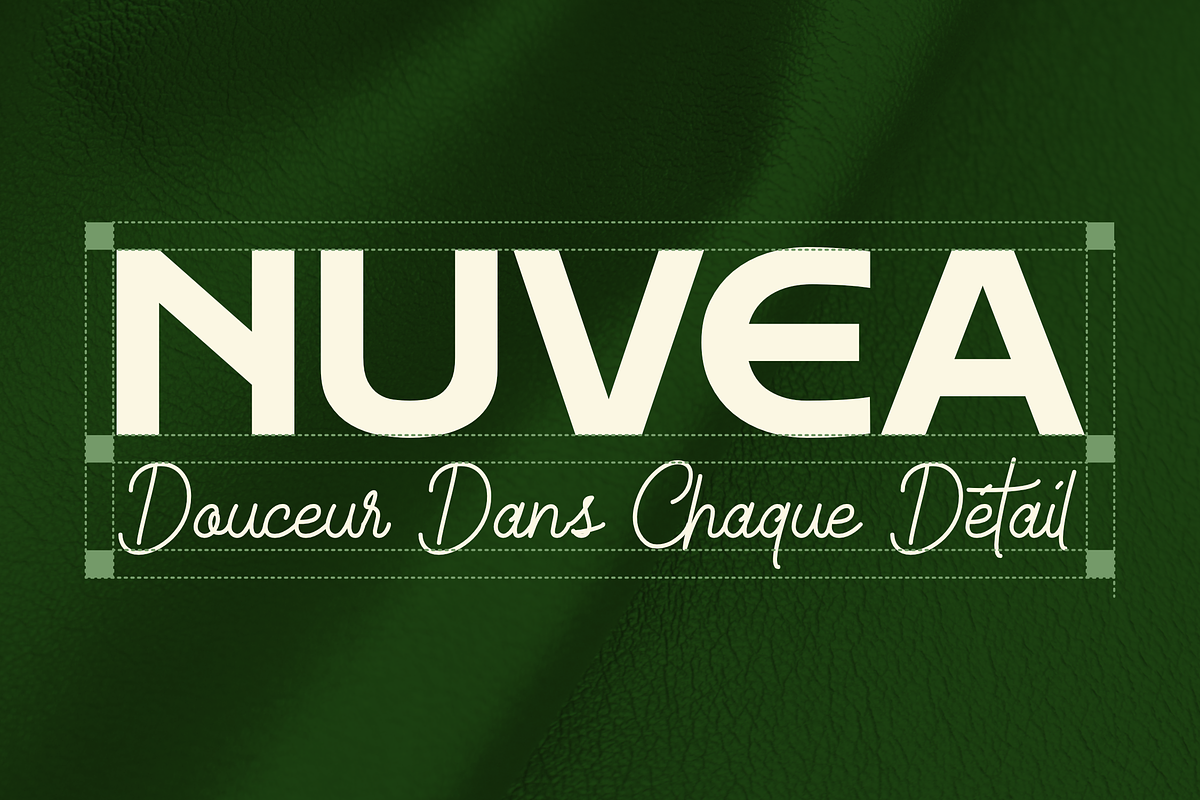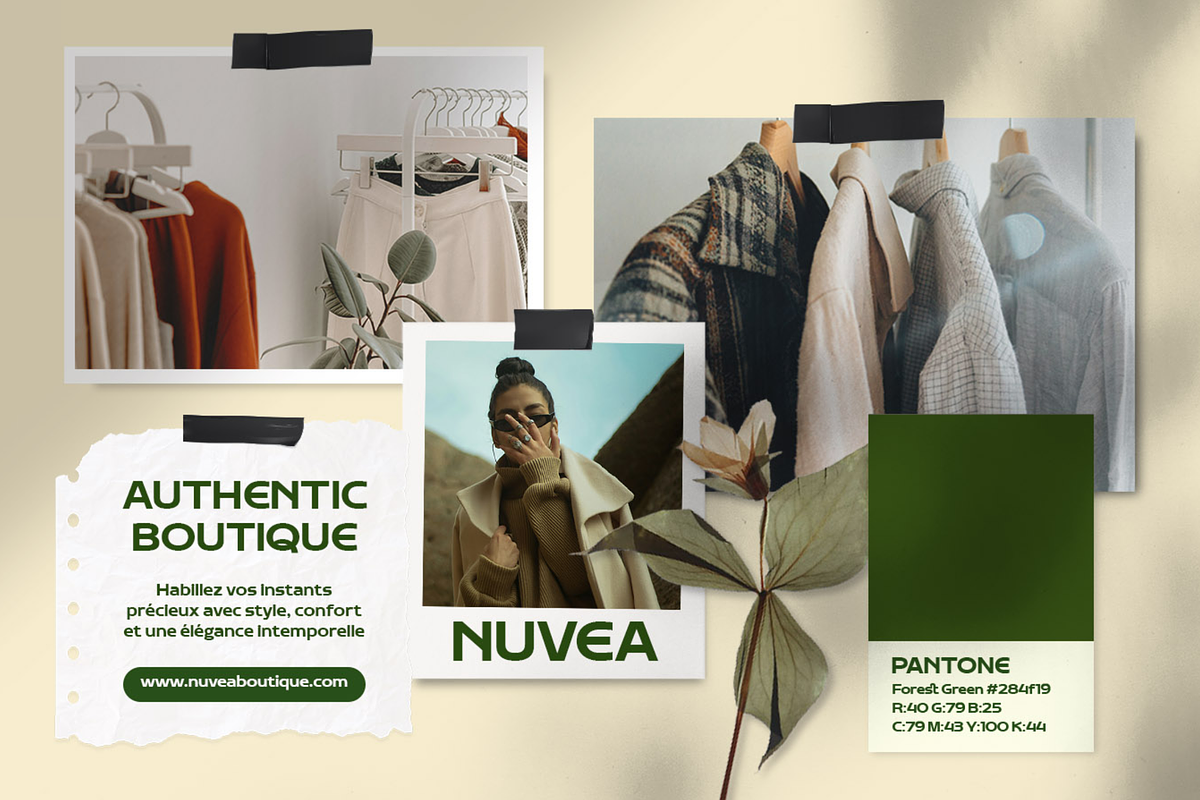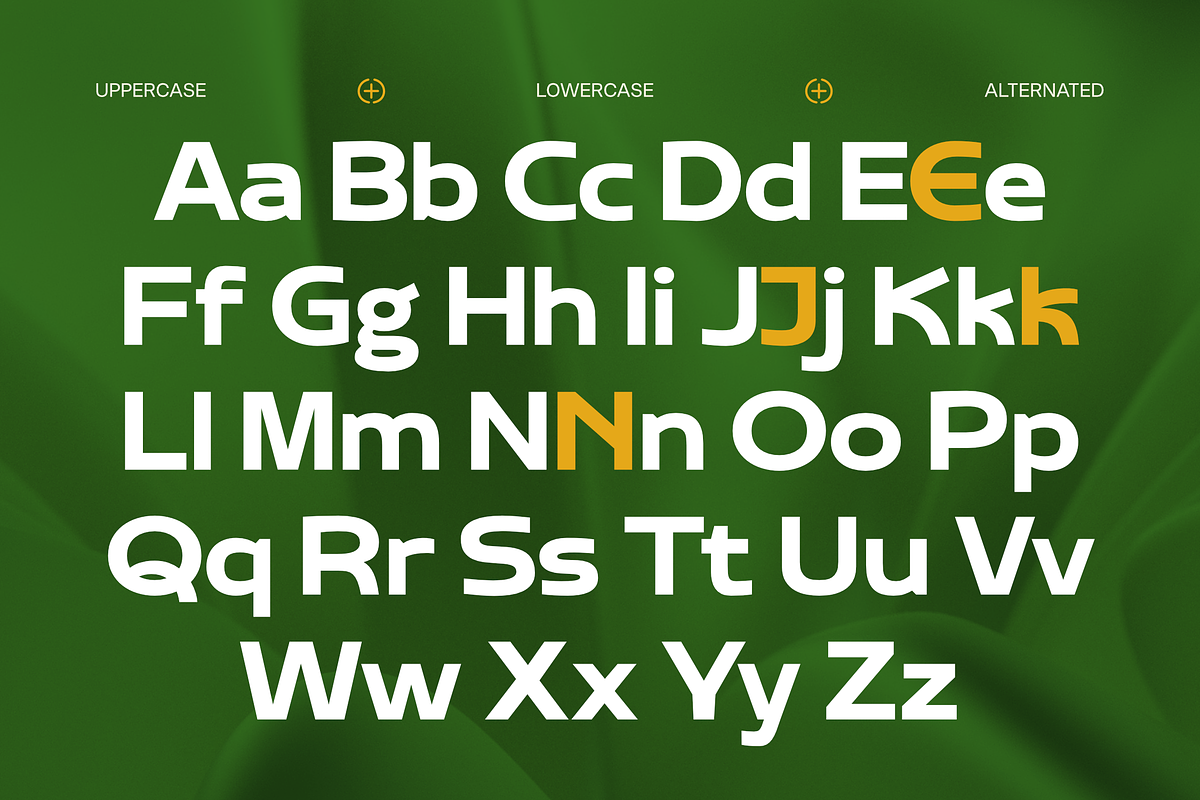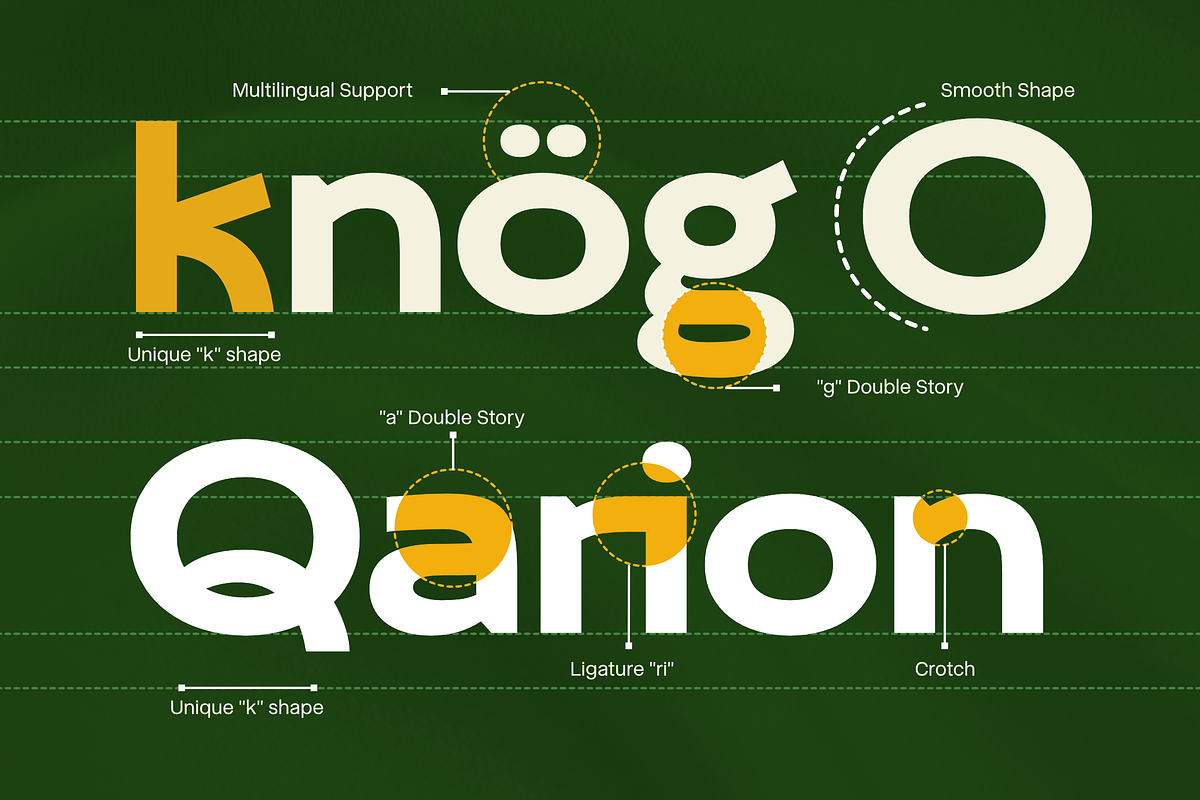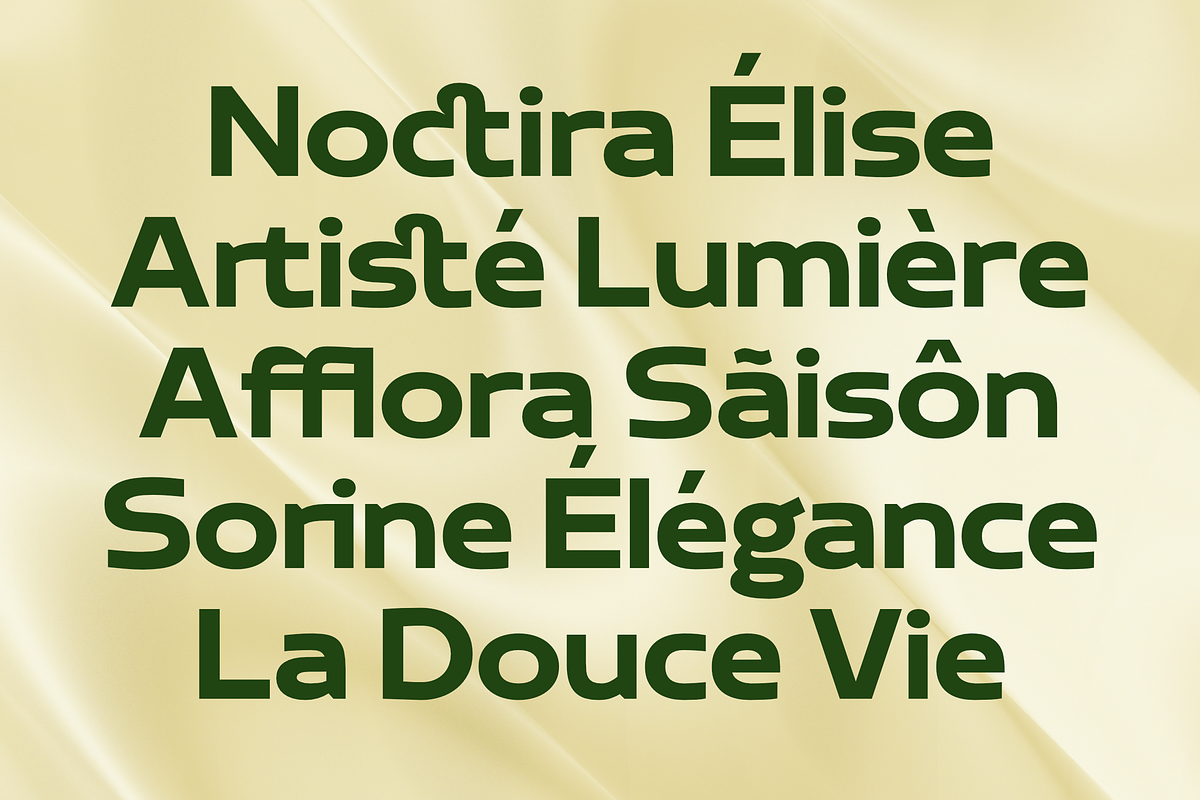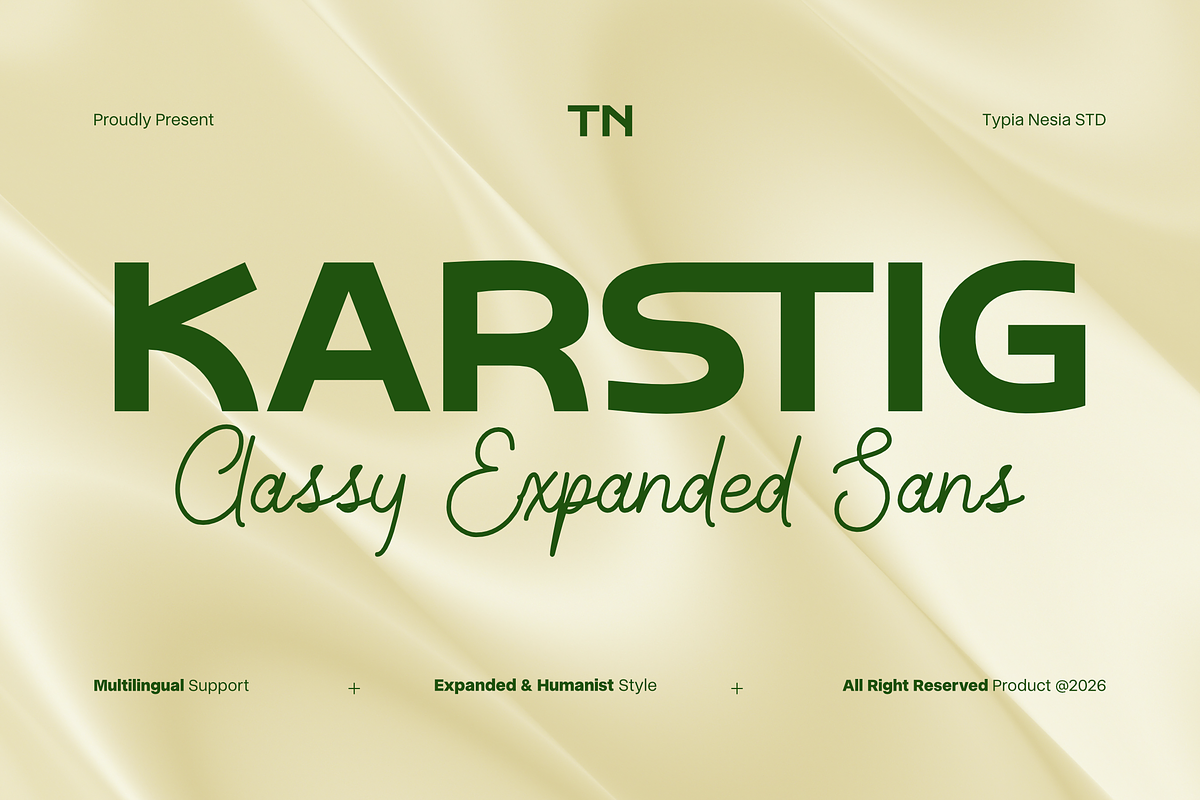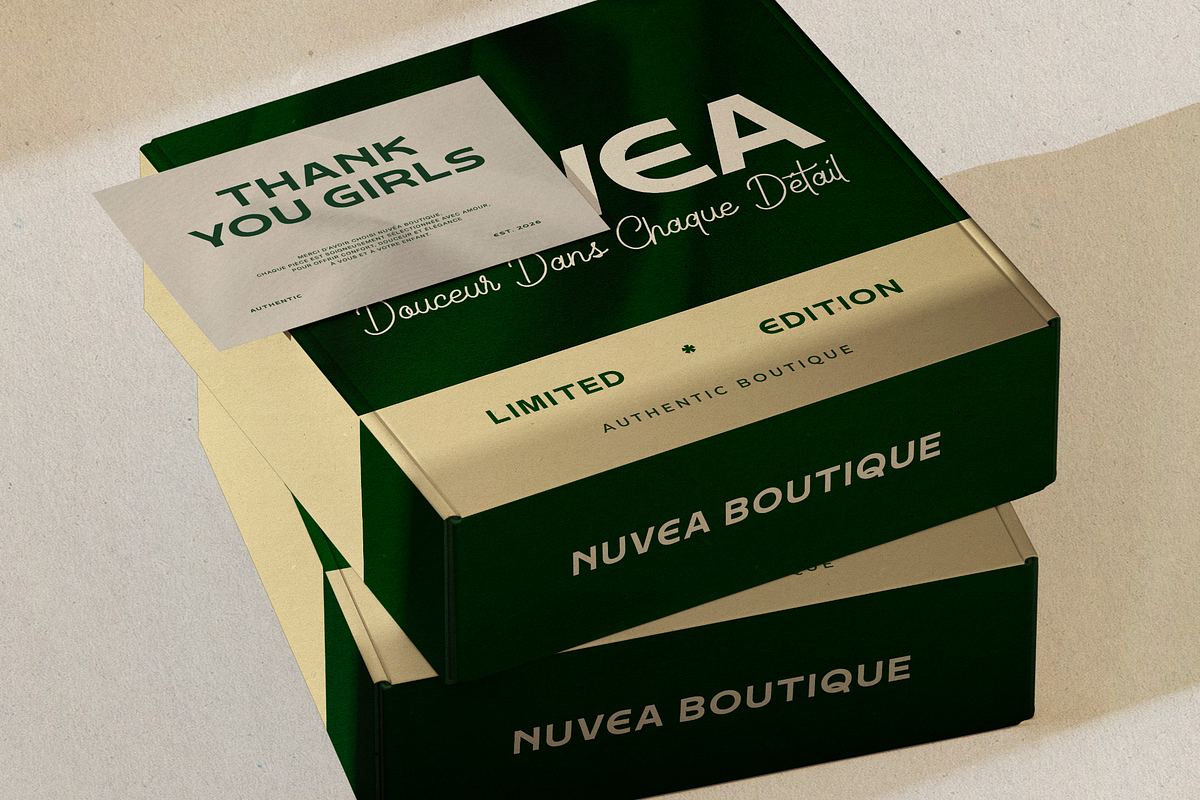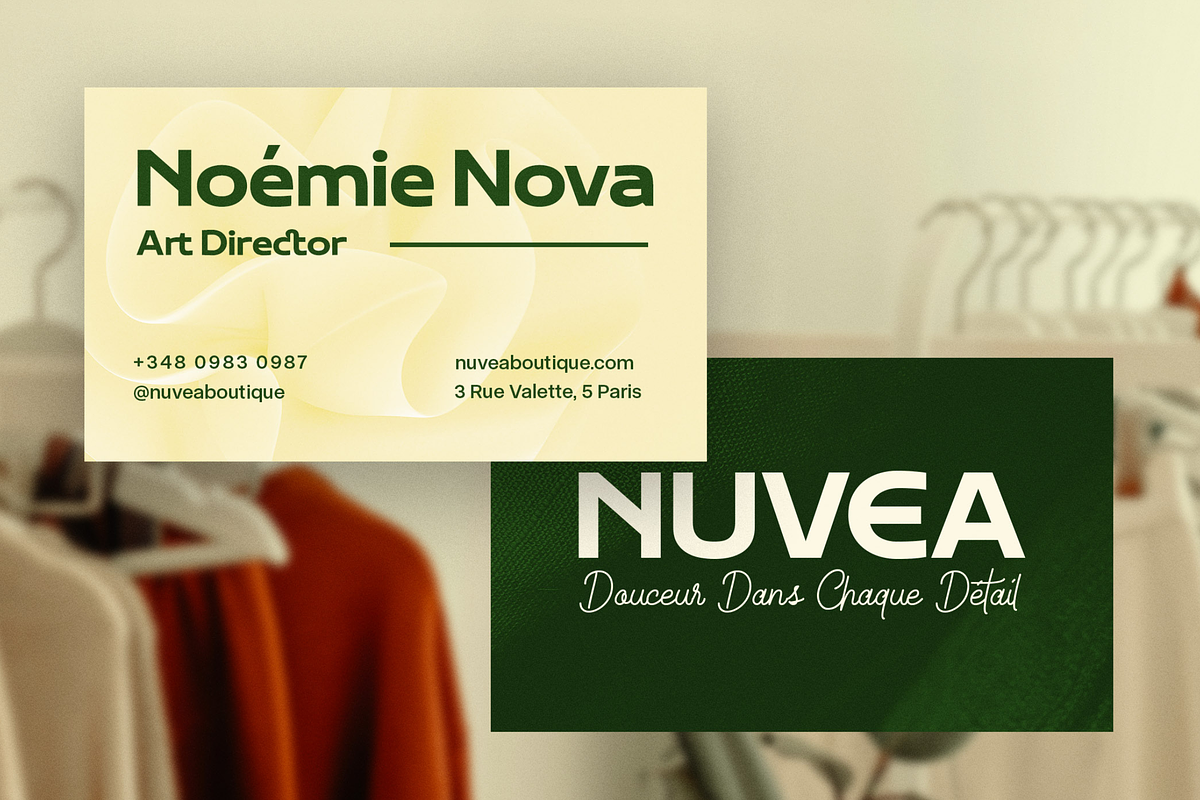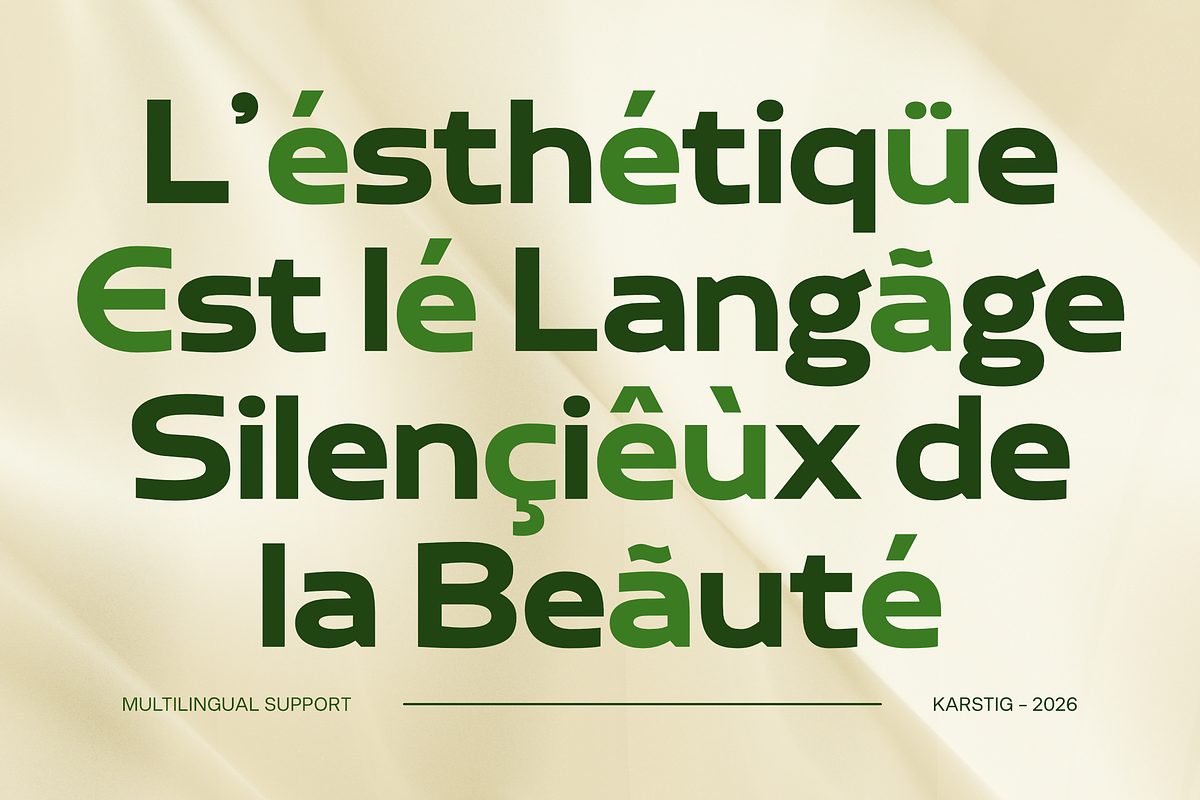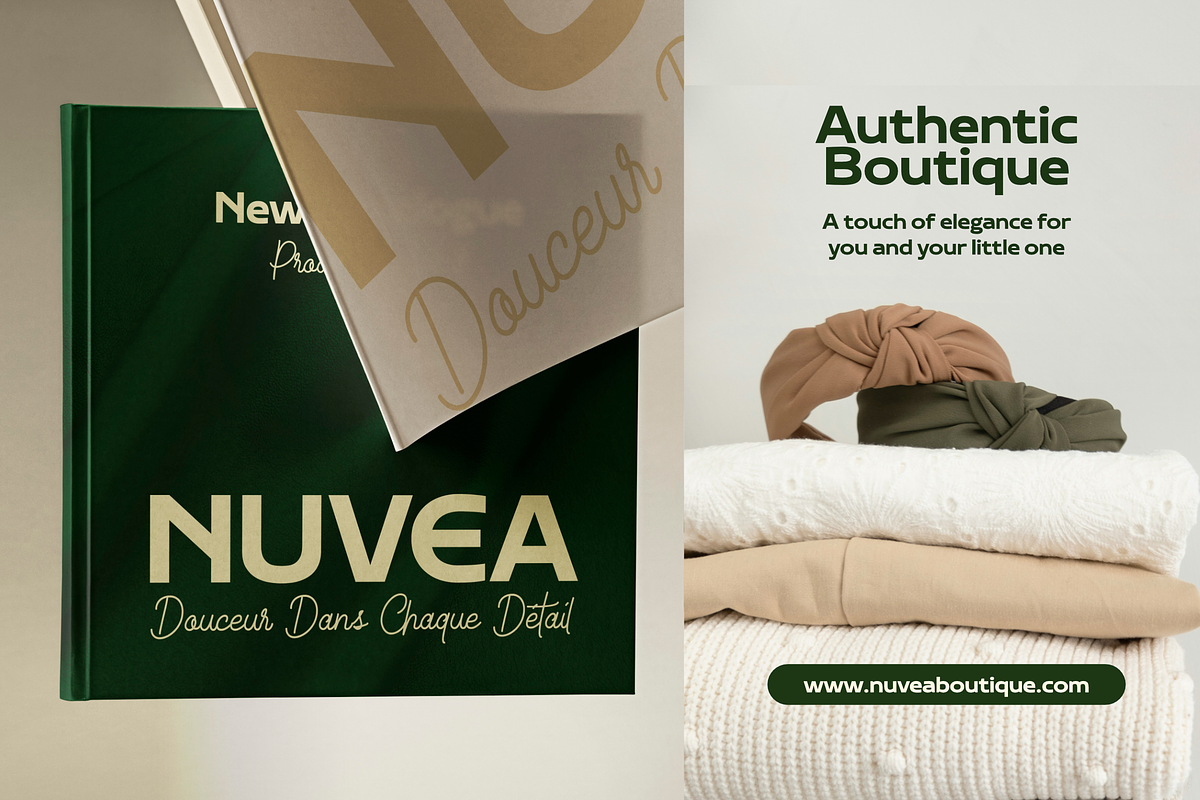
Karstig - Modern Clean Expanded Sans
Karstig - Modern Clean Expanded Sans Font - Minimal Logo Display Font
Karstig is a modern clean expanded sans font crafted for designers who seek bold simplicity and professional elegance. Featuring wide proportions, balanced geometry, and minimalist letterforms, this typeface delivers a strong visual presence while maintaining exceptional clarity and readability. Its expanded structure creates a confident and contemporary look, making it ideal for modern brandingt, logos, wordmarks, logotypes, corporate branding, posters, headlines, advertising, packaging, and professional marketing materials. The clean sans serif construction and classy modern aesthetic allow it to perform beautifully across both digital and print applications.
Create bold modern branding with Karstig.